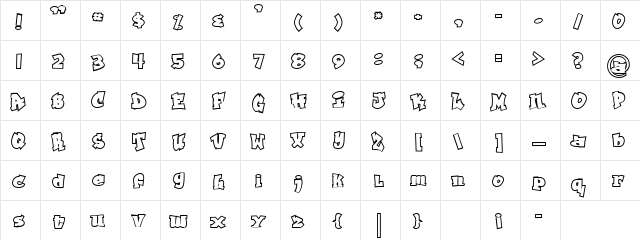
Grafitty Regular
Design Context for Grafitty Typeface
Grafitty is a composed and adaptable typeface that performs quietly and consistently across a wide range of design contexts.